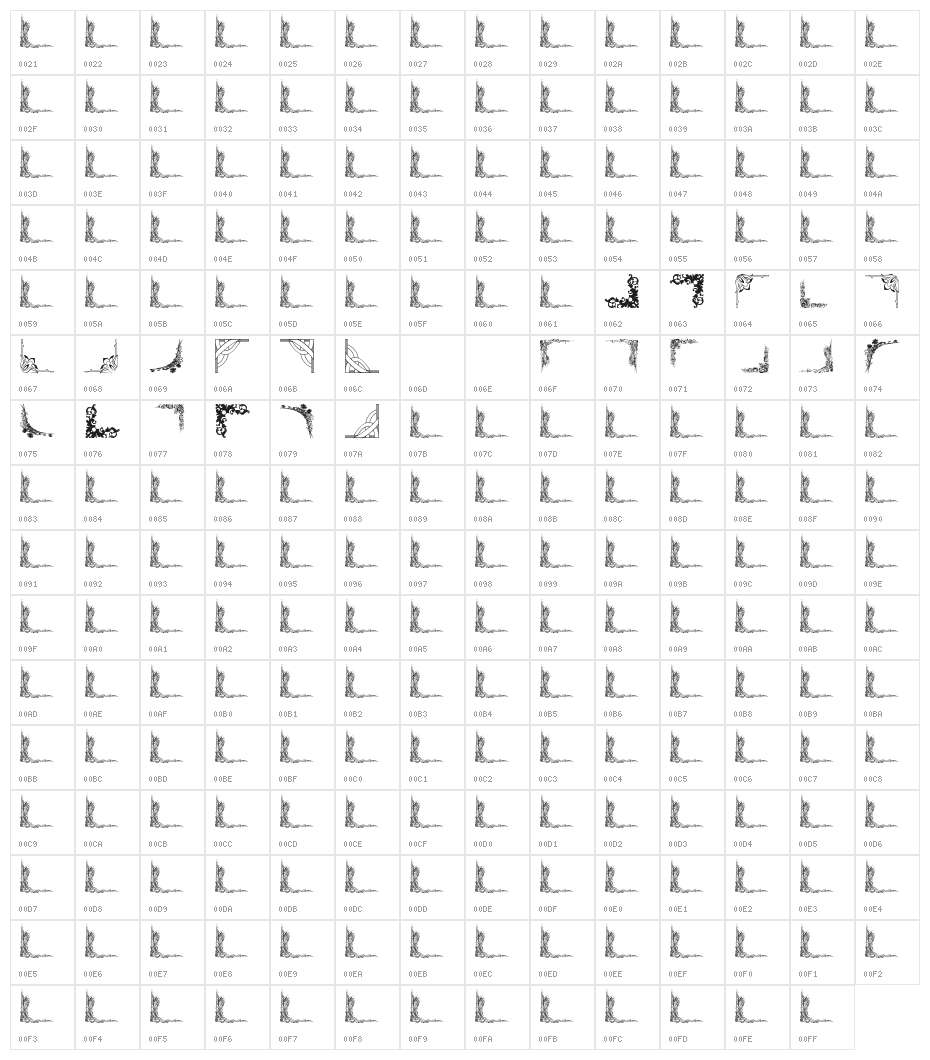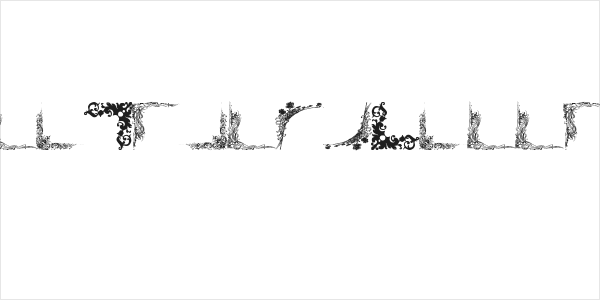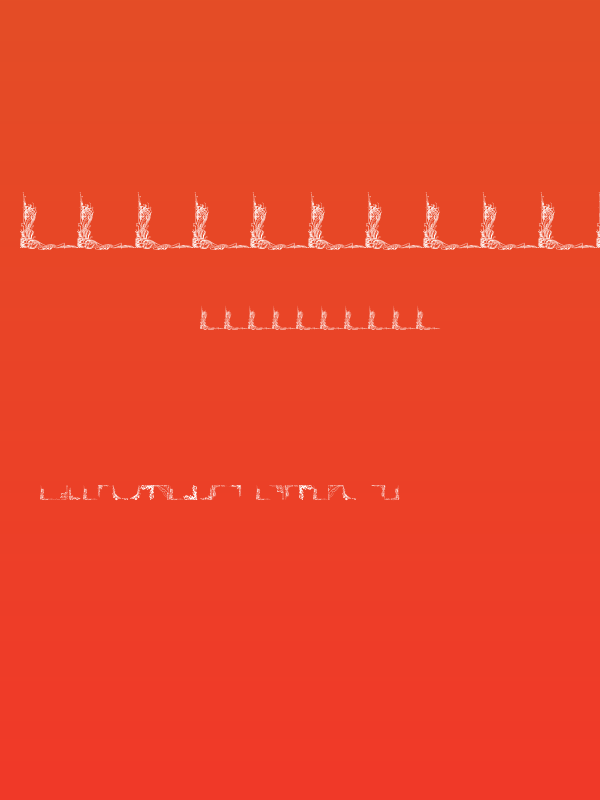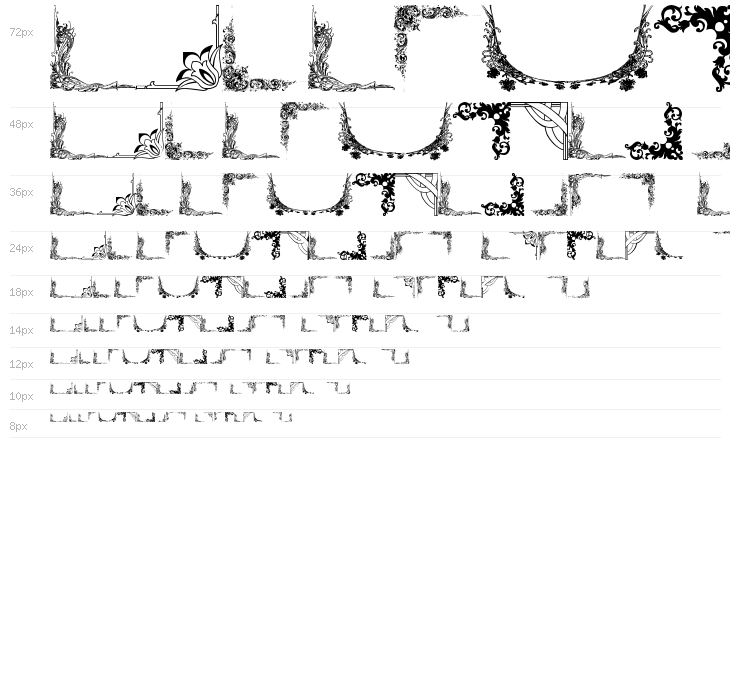
Vintage Decorative Corners 23 Font
Vintage Decorative Corners 23 Description
A highly decorative set of vintage corner and border elements featuring intricate, ornate flourishes and botanical motifs. The designs are detailed and reminiscent of Victorian or Art Nouveau styles, intended for embellishing the corners and edges of pages or frames.
| Overall Style | Vintage, Decorative |
| Use Case | Borders, Frames, Decorative accents |
| Proposed Projects | Wedding invitations, certificates, book covers, vintage posters, decorative frames, scrapbooking. |